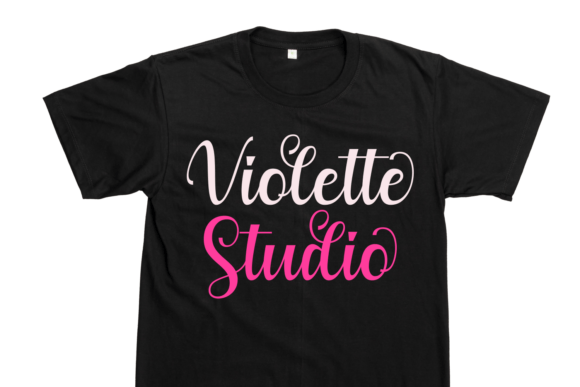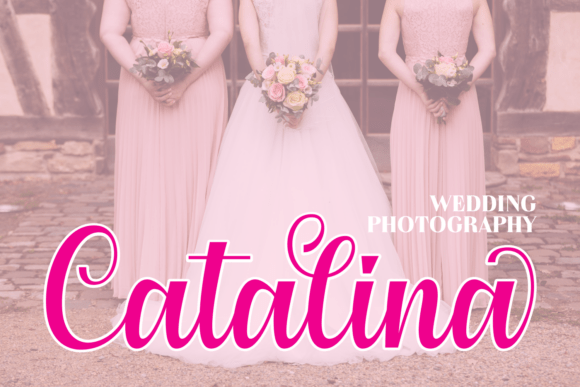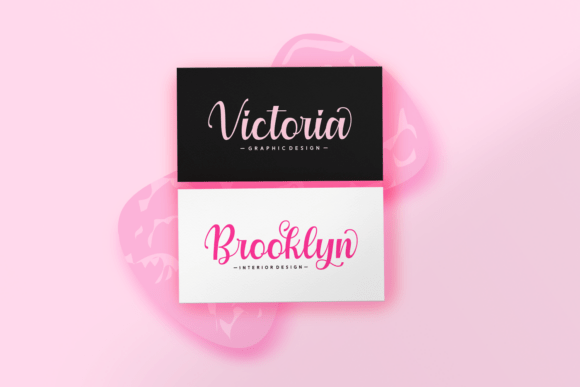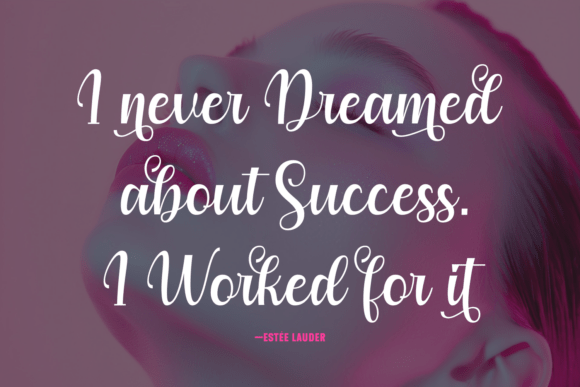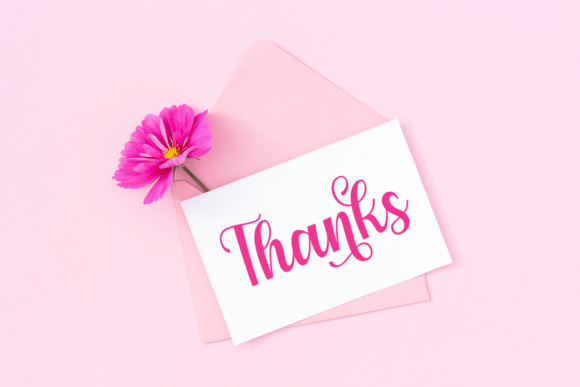
Gulitta Font: Elevate Your Designs with Elegance and Sophistication
In the world of typography, few fonts capture the essence of luxury and refinement as beautifully as Gulitta. This exquisite calligraphy script font is designed to bring a touch of timeless charm to any design, making it a perfect choice for discerning designers and crafters. With its flowing, graceful letterforms, delicate flourishes, and ligatures, Gulitta exudes elegance and sophistication, elevating your projects to new heights.
The Beauty of Gulitta
Gulitta’s design is characterized by its stylish loops and curves, which are paired with a soft contrast to create a sense of movement and refinement. The font’s delicate flourishes and ligatures add a touch of whimsy and romance, making it ideal for projects that require a level of sophistication and glamour. Whether you’re designing wedding invitations, luxury packaging, or high-end editorial projects, Gulitta is the perfect choice to make your designs stand out.
Perfect for Wedding Invitations and Luxury Projects
Wedding invitations, in particular, are a great match for Gulitta. The font’s elegant and refined aesthetic makes it perfect for formal wedding stationery, while its soft contrast and flowing letterforms add a touch of romance and whimsy. Gulitta is also an excellent choice for luxury packaging, high-end editorial projects, and branding, where a level of sophistication and elegance is required.
Key Features of Gulitta
- Flowing, graceful letterforms: Gulitta’s letterforms are designed to flow smoothly, creating a sense of movement and elegance.
- Delicate flourishes and ligatures: The font’s delicate flourishes and ligatures add a touch of whimsy and romance, making it perfect for projects that require a level of sophistication and glamour.
- Soft contrast: Gulitta’s soft contrast creates a sense of refinement and elegance, making it perfect for high-end projects.
- Stylish loops and curves: The font’s stylish loops and curves make it both approachable and striking, adding a touch of personality to any design.
Why Choose Gulitta?
There are many reasons why designers and crafters choose Gulitta for their projects. Here are a few:
- Elegance and sophistication: Gulitta exudes elegance and sophistication, making it perfect for high-end projects.
- Versatility: The font is versatile and can be used for a variety of projects, from wedding invitations to luxury packaging.
- Easy to read: Despite its elegant and refined aesthetic, Gulitta is easy to read, making it perfect for body text and headlines.
- Unique and distinctive: Gulitta’s unique and distinctive design makes it stand out from other fonts, adding a touch of personality to any design.
Tips for Using Gulitta
Here are a few tips for using Gulitta in your designs:
- Pair with a sans-serif font: Pair Gulitta with a sans-serif font for a striking contrast that adds visual interest to your design.
- Use for headlines and titles: Gulitta is perfect for headlines and titles, where its elegant and refined aesthetic can shine.
- Add a touch of whimsy: Add a touch of whimsy to your design by using Gulitta’s delicate flourishes and ligatures.
In conclusion, Gulitta is an exquisite calligraphy script font that exudes elegance and sophistication. Its flowing, graceful letterforms, delicate flourishes, and ligatures make it perfect for wedding invitations, luxury packaging, high-end editorial projects, and branding. With its stylish loops and curves, paired with a soft contrast, Gulitta brings a touch of timeless charm to any design. Whether you’re a designer or crafter, Gulitta is a great choice for anyone looking to elevate their designs with elegance and sophistication.